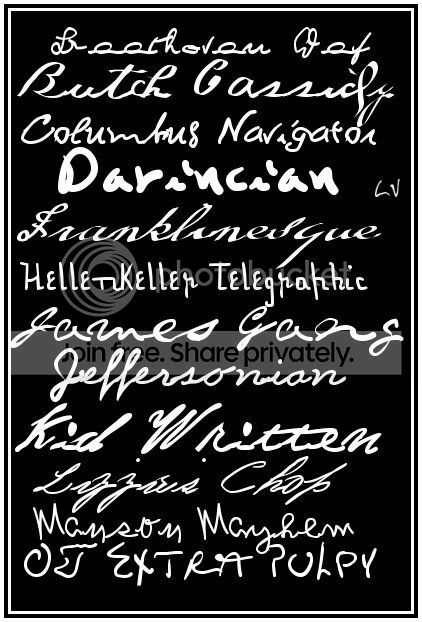
Everyone has those days where words won't begin to describe how you feel. Why not help your words do exactly what they want? What better way to let your boss know your true feelings than by resigning with the help of Lizzie Borden ? How else would you confess ardent feelings of corporate takeover than through the script of Jesse James? And everyone will know you mean business when Jack the Ripper writes your cover letters.